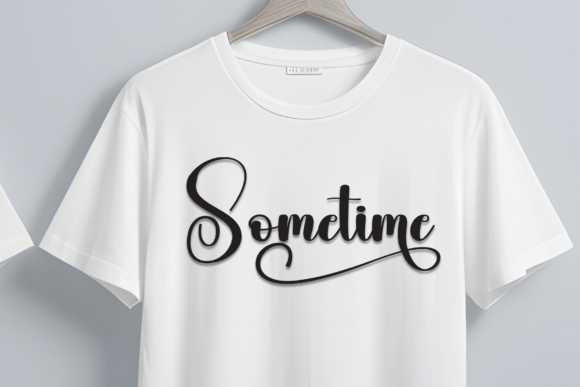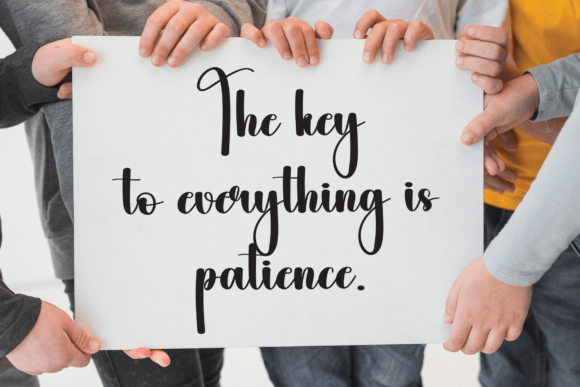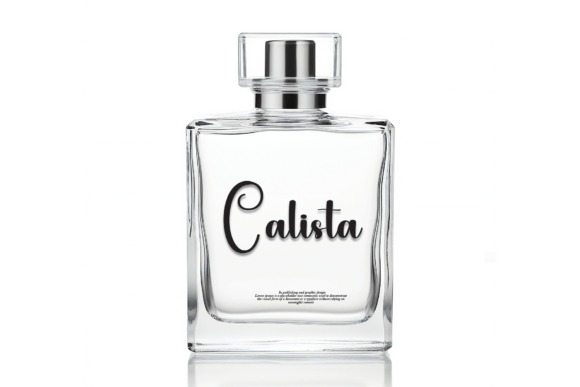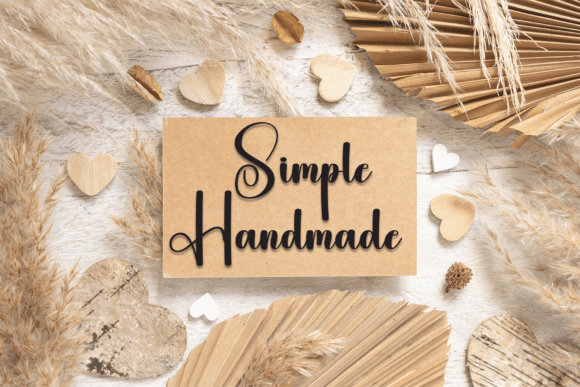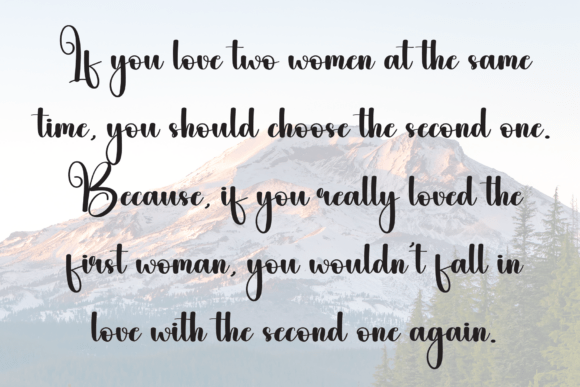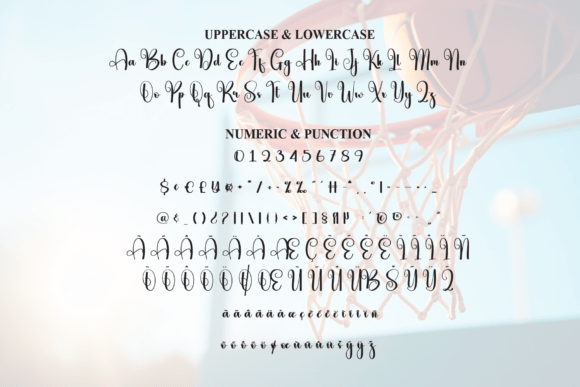
As a designer, there’s nothing quite like the thrill of creating a stunning visual identity for a brand or project. You’re brainstorming ideas, experimenting with color palettes, and searching for the perfect font to tie everything together. That’s when it hits you – the perfect font is the one that elevates your design from good to great, and Basketball Font is one of those game-changers.
Basketball Font is a stylish script font that adds a touch of sophistication and personality to any design. With its fluid strokes, graceful curves, and balanced letterforms, it’s the perfect choice for logos, invitations, packaging, and social media graphics. Whether you’re working on a high-end fashion brand or a quirky startup, Basketball Font delivers both visual appeal and versatility.
Basketball Font Key Features
- Font Family: Basketball Font is a custom-designed font, making it a unique choice for basketball-related projects.
- Unique Characteristics: Features a bold, dynamic, and energetic feel, making it perfect for basketball-themed designs, logos, and branding materials.
- Character Count: Includes a comprehensive set of characters, including uppercase and lowercase letters, numbers, and special characters, making it suitable for a wide range of applications.
Basketball Font Review
When I first laid eyes on the Basketball Font, I was immediately drawn to its energetic and playful vibe ✨. The font’s bold, dynamic lines and curved shapes perfectly capture the excitement of a slam dunk. The font is highly legible, even at smaller sizes, making it perfect for use in titles, headings, and other display text.
The Basketball Font is also highly customizable, with a wide range of styles and weights to choose from. This makes it easy to tailor the font to fit your specific design needs ✨. Whether you’re creating a logo, a poster, or a website, the Basketball Font is a versatile choice that’s sure to bring a touch of basketball magic to your design.
- ⚠️ Limited use in body text: While the font is great for titles and headings, it may be difficult to read in large blocks of text. Its bold lines and curves can make it feel overwhelming when used extensively.
- ⚠️ Limited international support: The Basketball Font may not include all the necessary characters and symbols for languages other than English, which can be a limitation for global designs.
The Basketball Font is a fun and energetic font that’s perfect for designs related to basketball or sports in general. While it has some limitations, its unique style and versatility make it a great choice for designers looking to add some excitement to their work. With a little creativity and caution, the Basketball Font can be a slam dunk for your next design project ✨.
The Basketball Font is ideal for creating sports-themed designs, such as basketball team logos, jerseys, and promotional materials.
Use it to add a touch of sporty flair to your designs and make them stand out.
Experiment with different font sizes, colors, and styles to create unique and eye-catching designs.